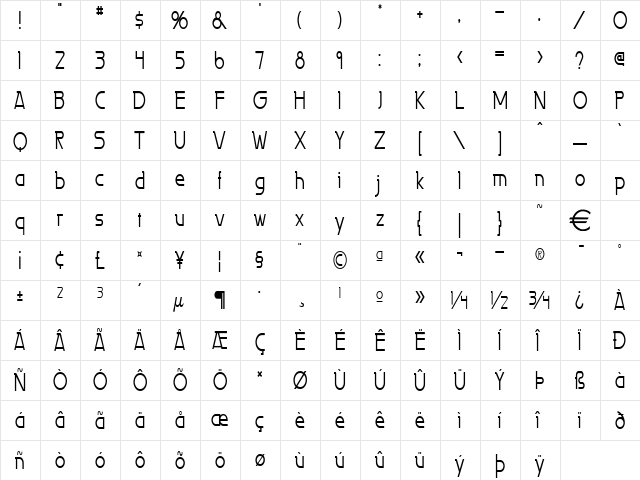
PersiaThin Normal
Design Context for PersiaThin Typeface
PersiaThin takes a measured approach to typography — its balanced proportions and neutral character make it a reliable workhorse for both digital and print work. Its slender proportions lend an understated elegance to any composition.